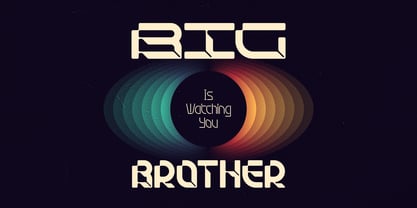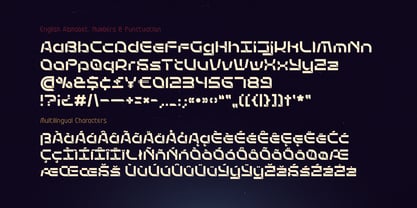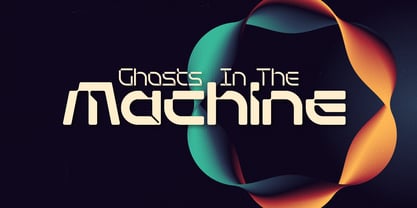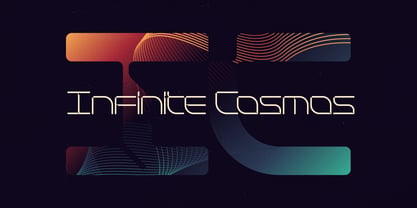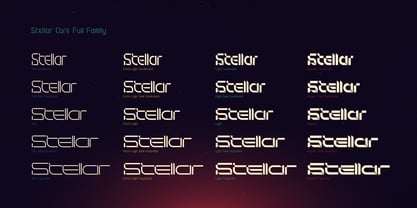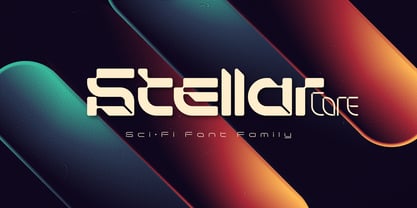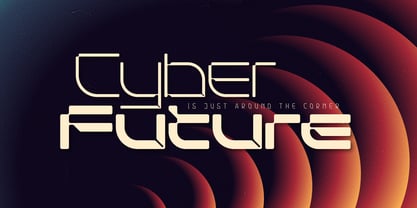
Stellar Core
by Gleb Guralnyk
Hi! Introducing Stellar Core, a sci-fi font family that fuses retro computer aesthetics with futuristic robotic flair. Inspired by retro-futuristic technology, vintage computer interfaces, and classic arcade vibes, Stellar Core brings a unique balance of nostalgia and digital edge to your designs.
Designed for bold and eye-catching visuals, Stellar Core is perfect for posters, branding, logos, album covers, game graphics, packaging, headlines, and futuristic UI designs.
Whether you're creating a retro-futuristic identity or adding a cybernetic touch to your next project, Stellar Core is built to make your typography stand out.
The Stellar Core family includes 4 weights and 5 widths, giving you 20 fonts in total, plus 1 variable font containing all weights and widths in a single file.
A lot of my fonts inherits vintage graphic styles but nevertheless I don't like to stick to one theme for a long time. That's why I'm trying to create fonts in different styles and from different eras, from old gothic calligraphic to modern handwritten scripts, from medieval antique to minimalist sans-serif typefaces. It's always interesting to design something new, and expand my skills in novel font design directions.